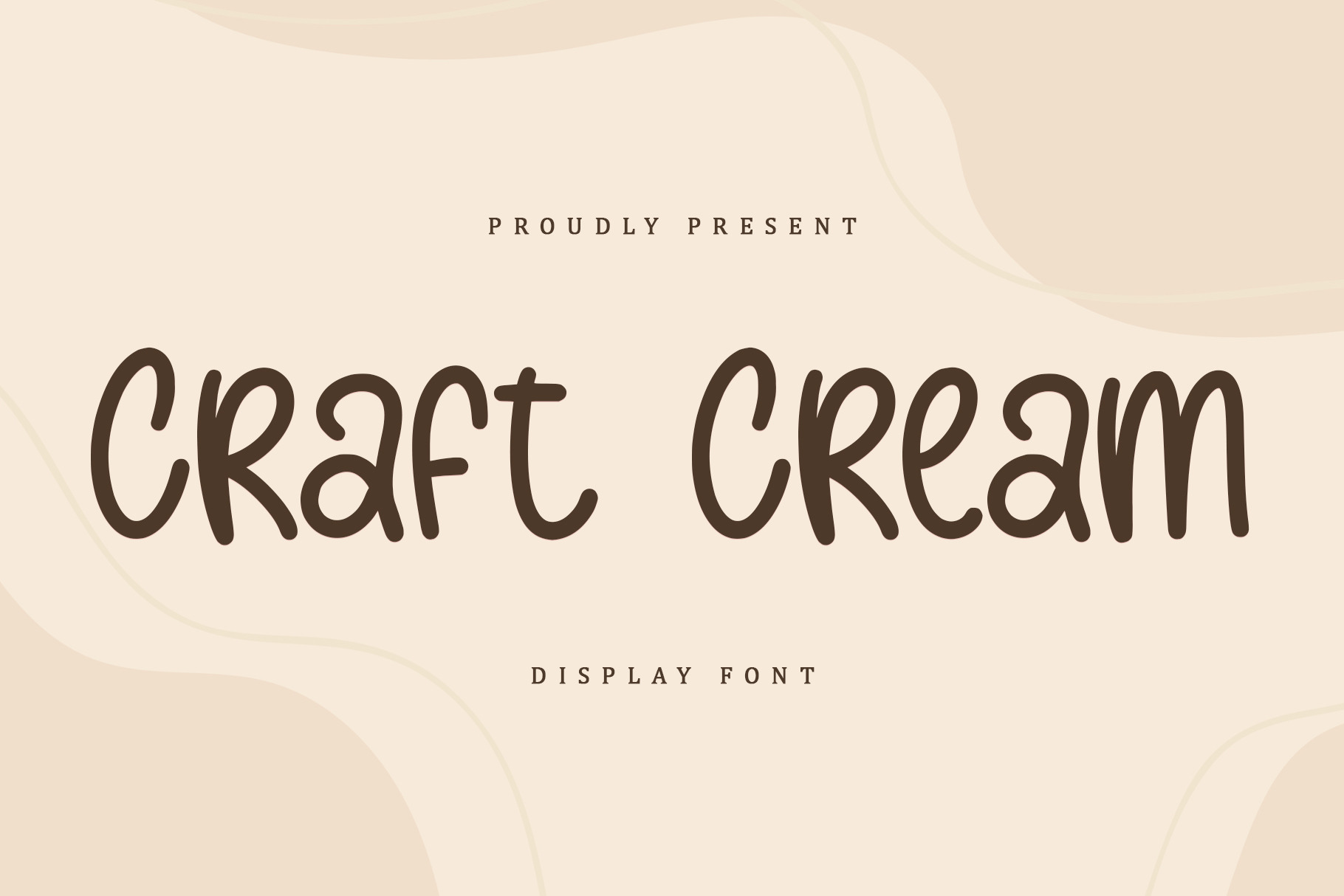
Crfat Cream | Display Font
Cream Craft is a chic and modern script font that is both stylish and sophisticated. With flowing curves and graceful strokes, this font exudes an air of luxury and glamour. Ideal for creating invitations, wedding stationery, branding materials, and any project that requires a touch of elegance.